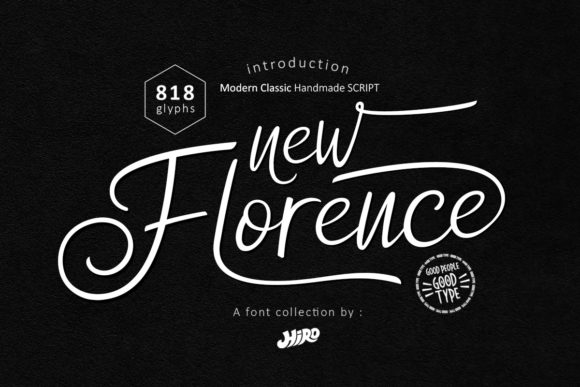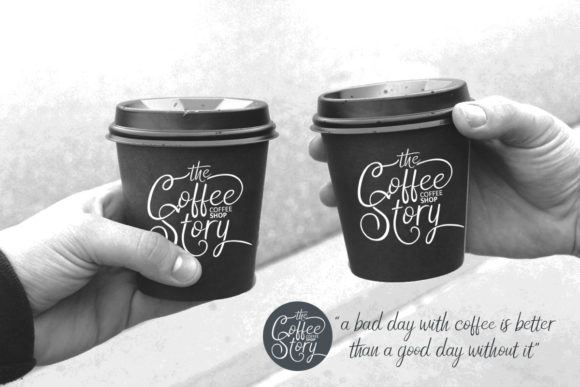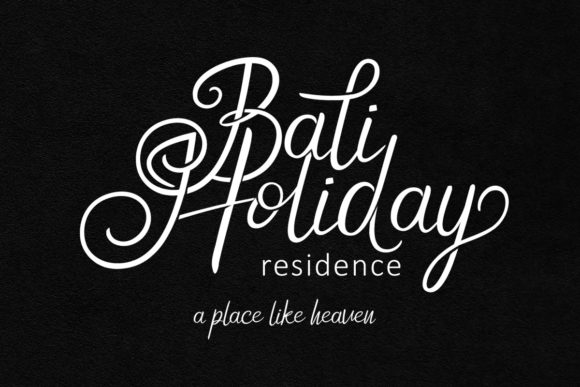
About New Florence Font
New Florence is a gorgeous handwritten font. It features an incredibly classic style, while still keeping a friendly feel. New Florence is the perfect font for making original and outstanding designs.